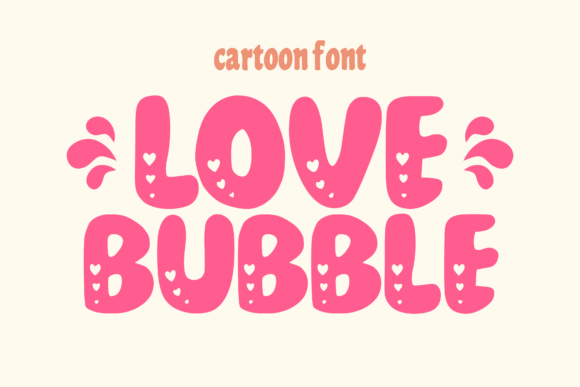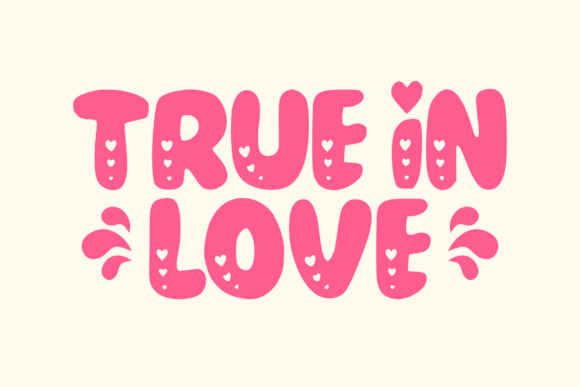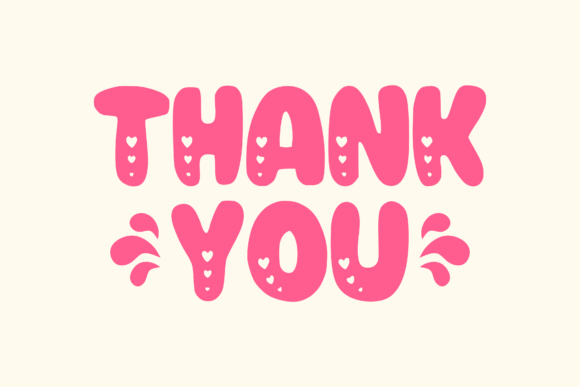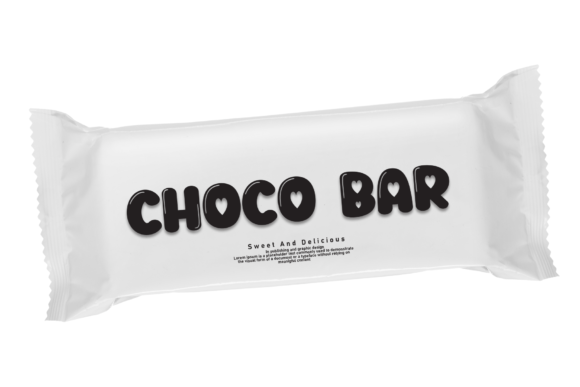
Love Bubble Font
About the Love Bubble Font
From logos to headlines, the Love Bubble Font is the perfect choice for making a lasting impression. Immerse yourself in the whimsical charm of Love Bubble, an ultra-modern and passionate font guaranteed to transform any project into a work of art. It adds vivableness to logos, imparts appealing touch to stickers, and lends an eye-catching flair to packaging designs. Love Bubble fits seamlessly in Cricut projects, news editorials, and comic strips, bringing uniqueness to the table. This font captures the essence of brand identities and fits comfortably in the sartorial world of t-shirts and apparel industry. It also expresses itself unapologetically in the print world of posters, magazines, and books. Enhance your digital content on YouTube, Instagram, and websites with this font par excellence. Whatever your creative project may be, let the luminous Love Bubble font embellish every stroke.
Love Bubble Font Usage Examples
Love Bubble Font Example